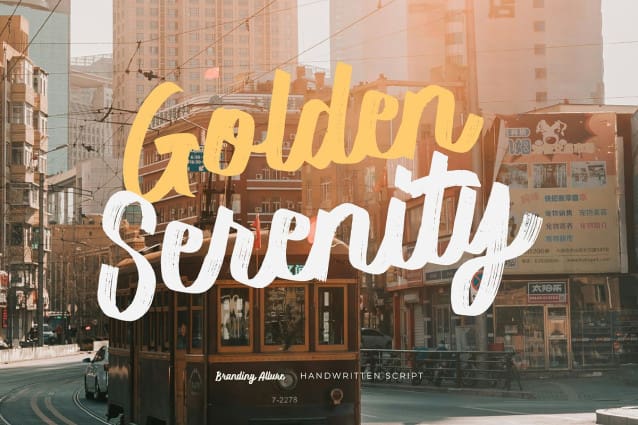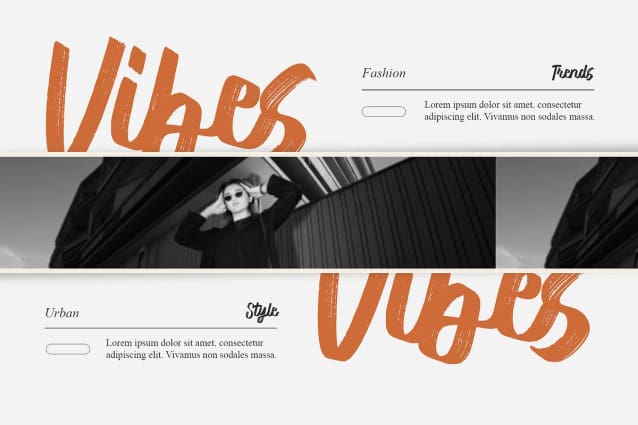
Branding Allure Font
Branding Allure is a textured brush script font that exudes a casual, modern, and clean aesthetic. Its dynamic and expressive strokes make it an ideal choice for branding projects, offering a fresh and approachable feel that can elevate the visual identity of any brand. Perfect for logos, product packaging, and advertising materials, Branding Allure adds a touch of sophistication and creativity, ensuring your brand stands out in a crowded market. Its versatility allows it to seamlessly blend into various design contexts, making it a go-to font for both digital and print media.
In addition to branding and advertising, Branding Allure is also well-suited for social media graphics, posters, and invitations. Its unique textured look provides a handcrafted feel that appeals to a broad audience, enhancing the emotional connection between the brand and its customers. Whether you’re designing for a trendy fashion label, a chic lifestyle blog, or a contemporary art event, Branding Allure delivers the perfect balance of style and readability.